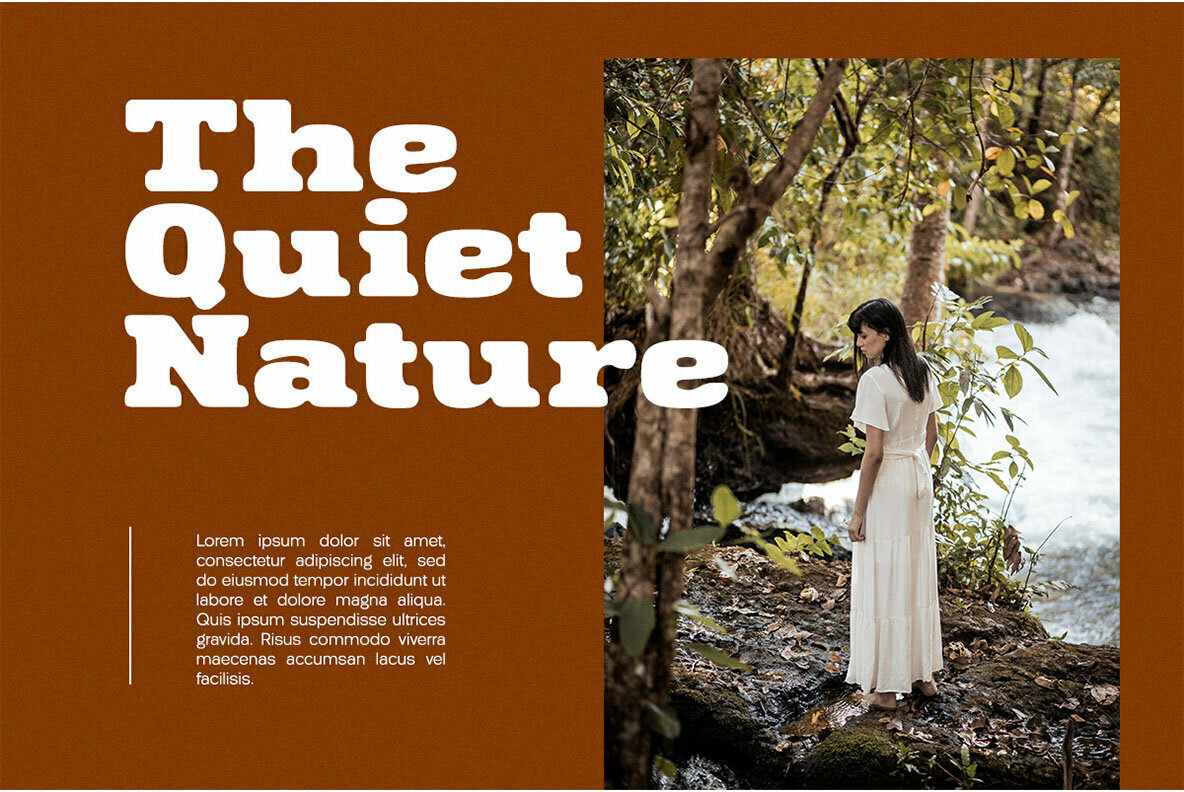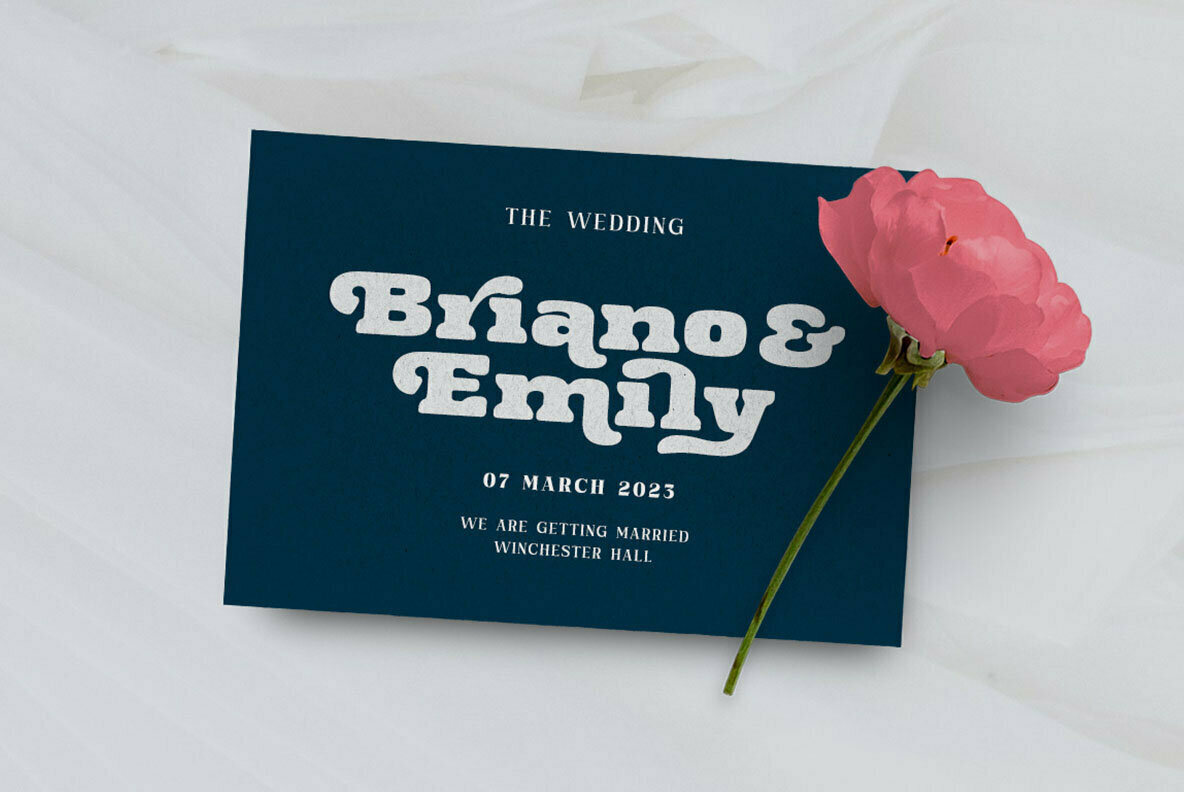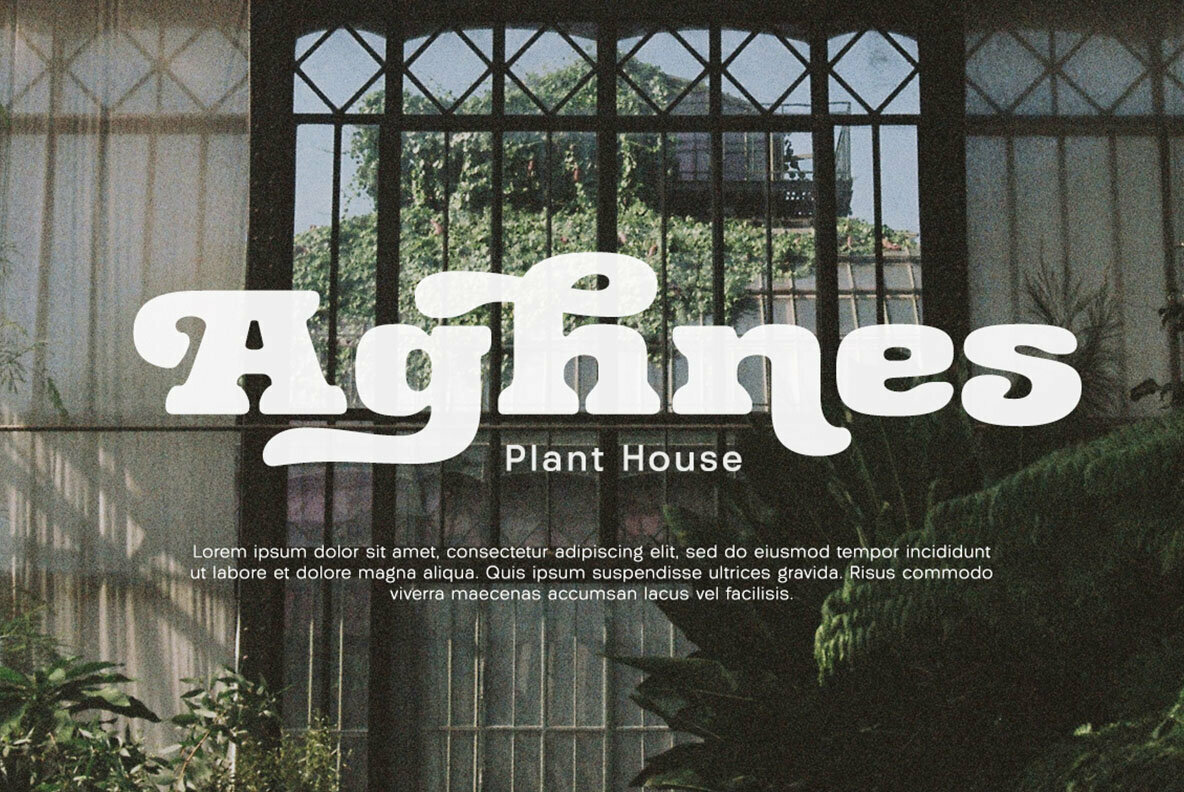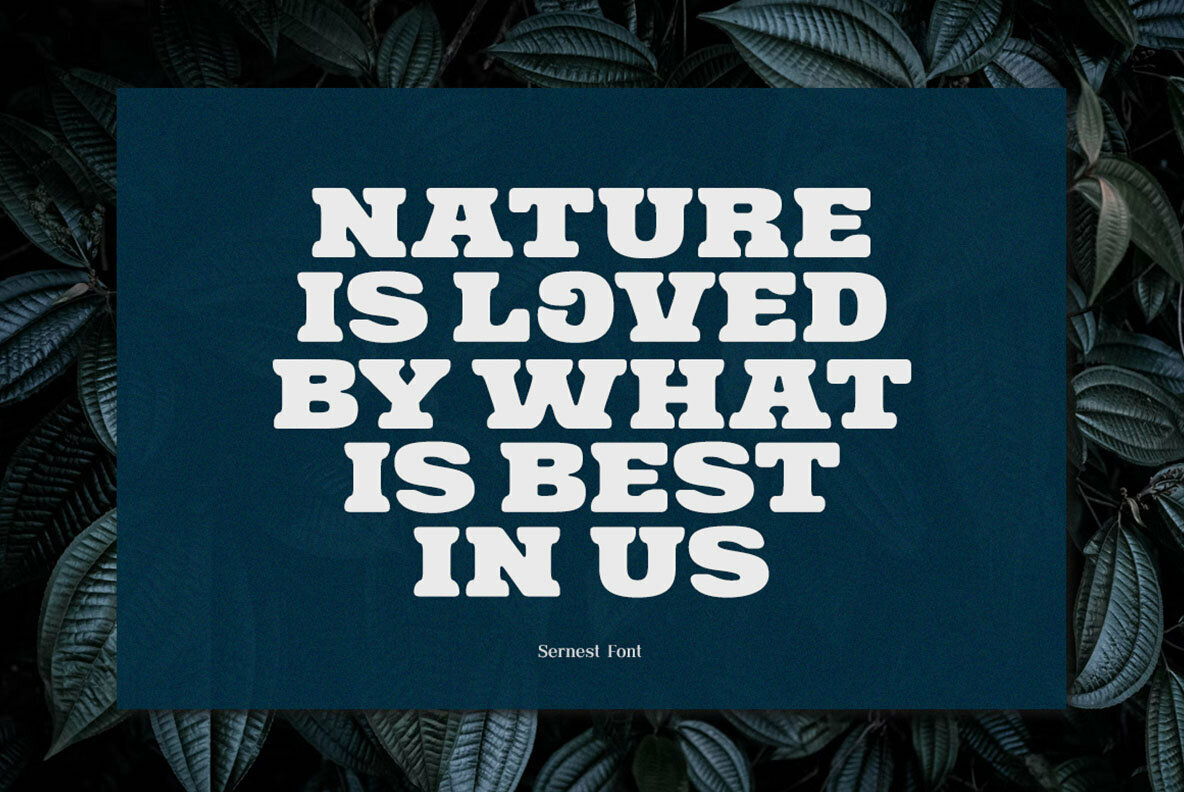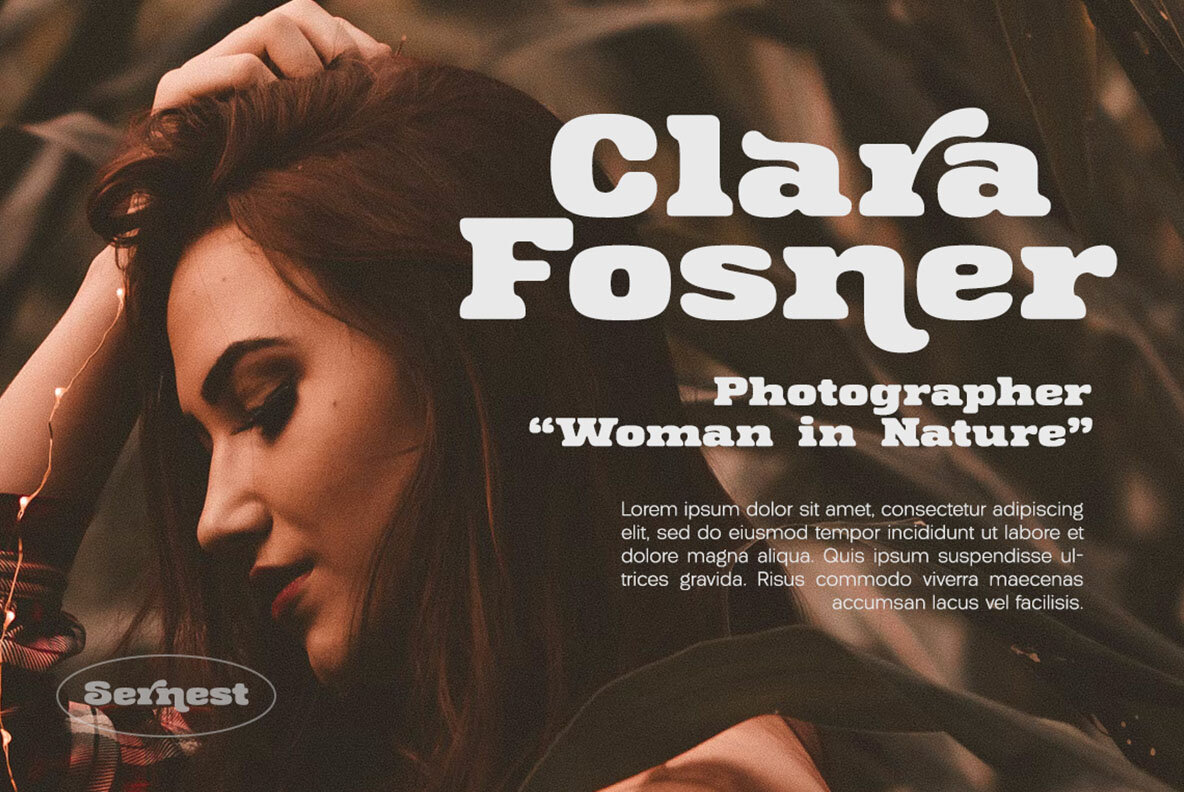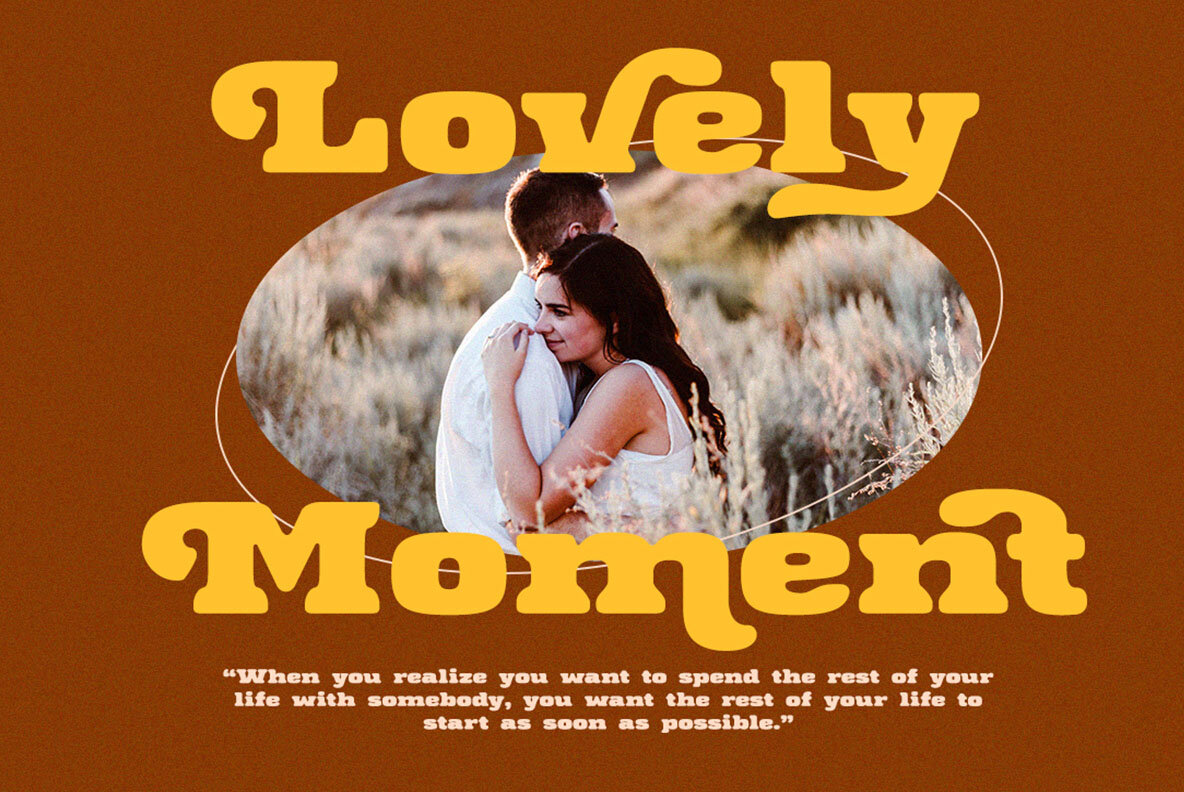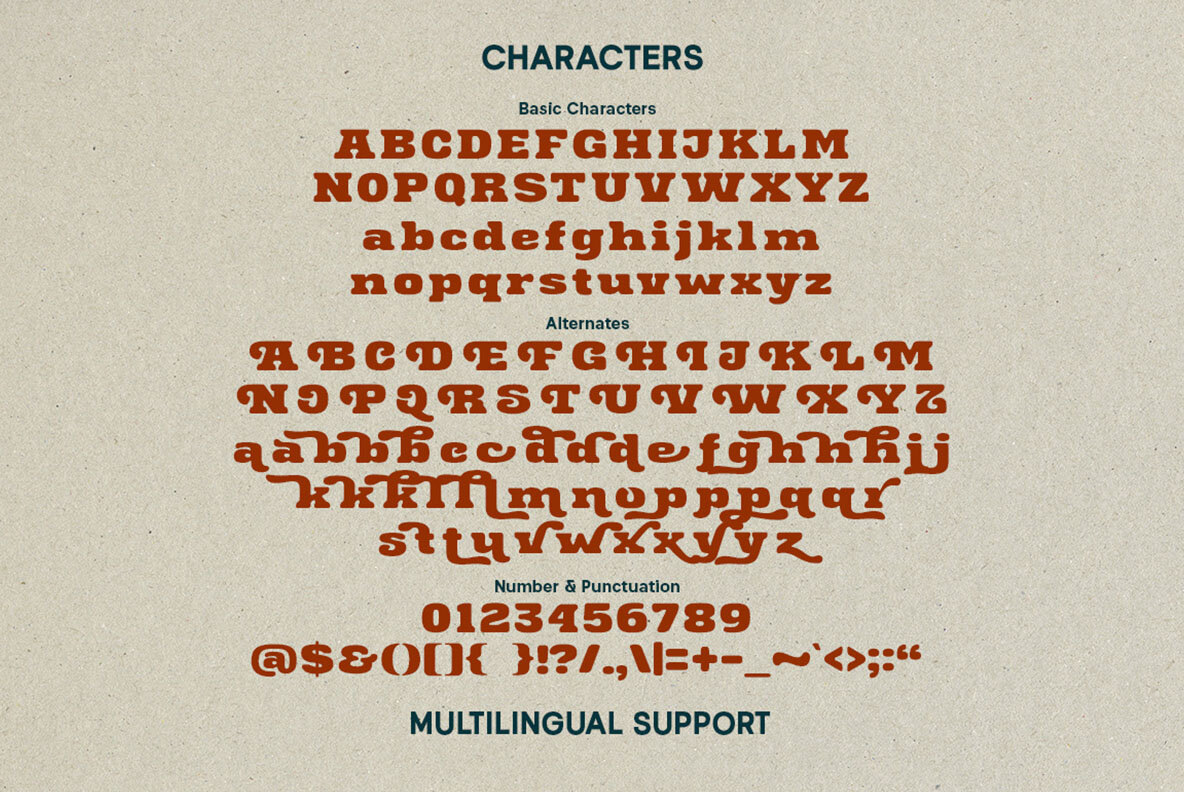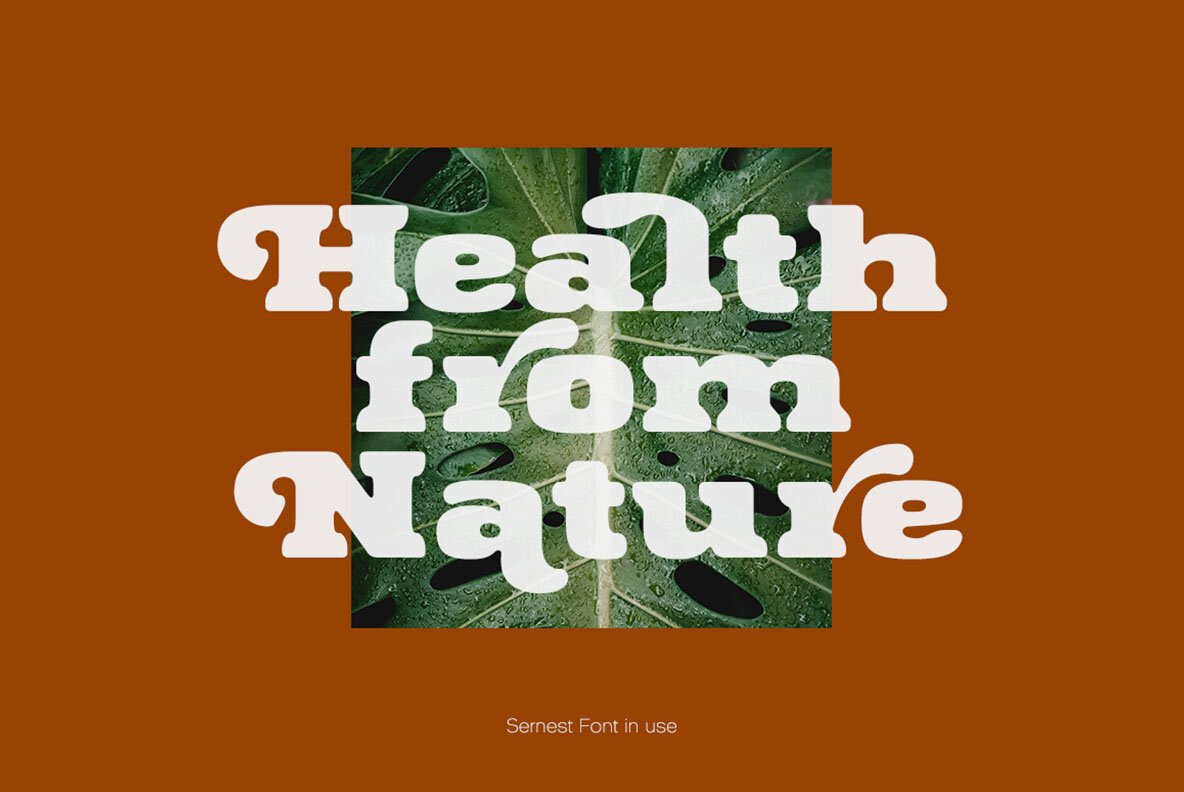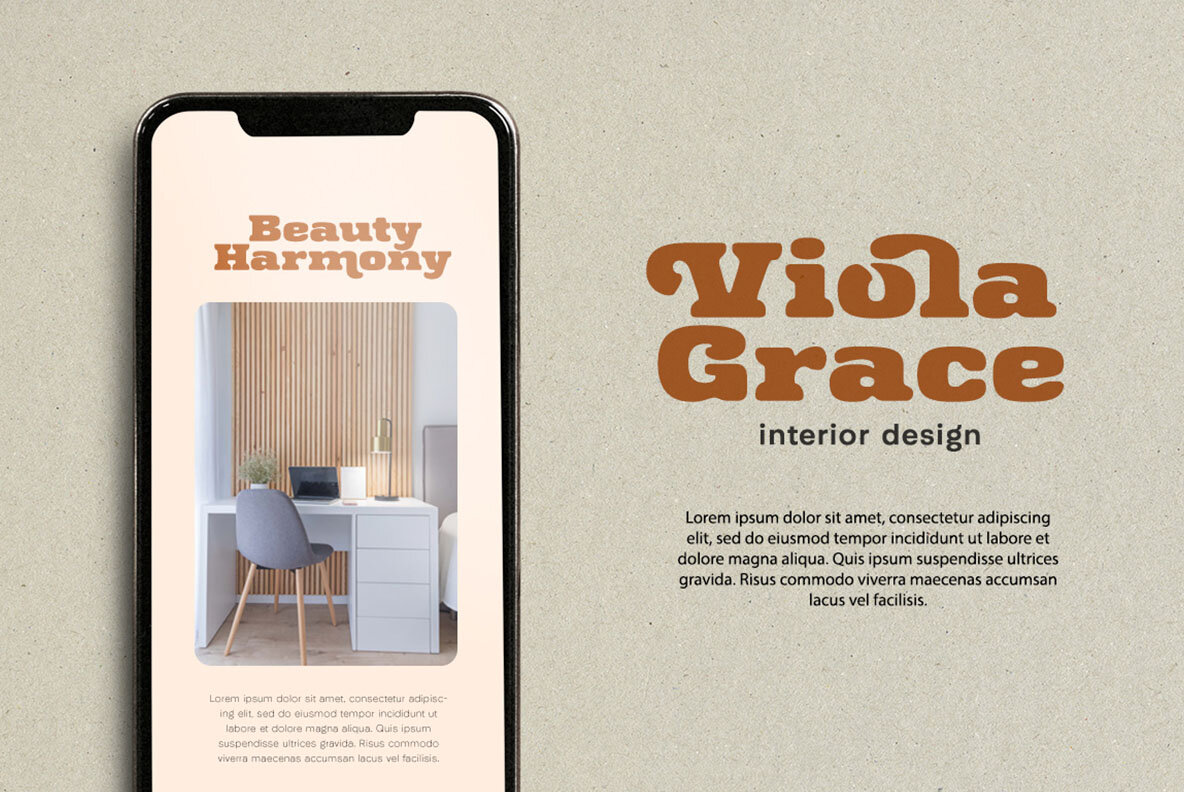
Sernest Font
Sernest Regular
Sernest Display captures the elegance of a timeless serif, infused with vintage undertones. Designed by Letterhend Studio, this typeface is an excellent choice for logos, headlines, and signage. Whether you're crafting invitations, labels, or any formal print material, Sernest Display supports various applications, making it a versatile tool for creative professionals. For optimal usage, we suggest employing software like Adobe applications or Corel Draw, which offer extensive support for OpenType features and Glyph variations.Sernest Display: Bold Serif with Vintage Charm